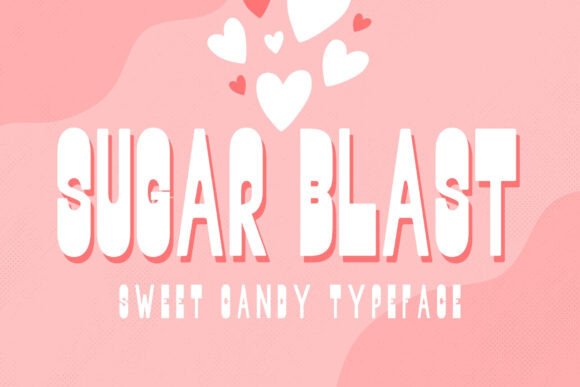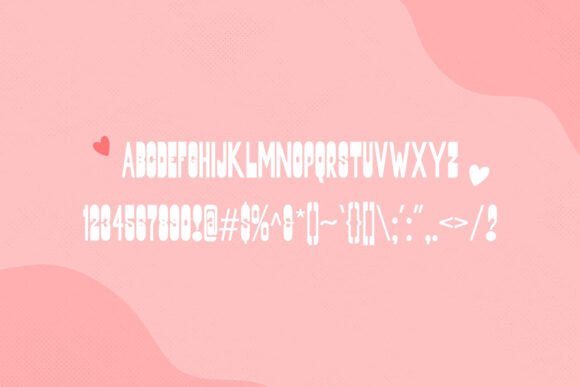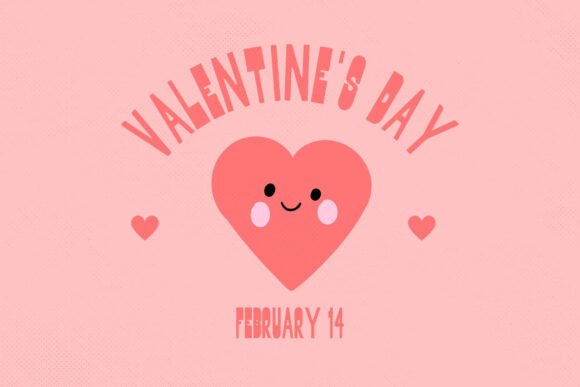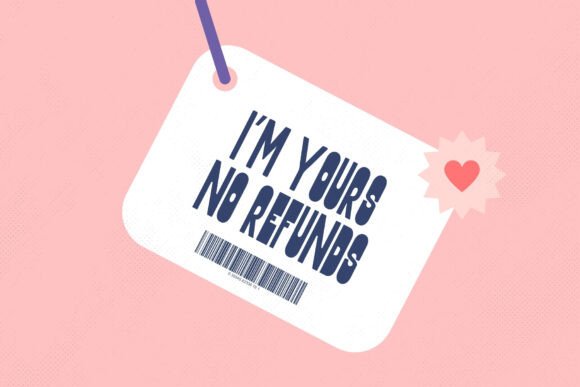
Sugar Blast Font: A Retro Bubbly Display Font for Playful Branding
About the Sugar Blast Font
Meet Sugar Blast Font, a stunning font that brings a touch of elegance and professionalism to any design. Step into a sugar-coated time machine with Sugar Blast, a bold and bubbly all-caps typeface inspired by the playful charm of 1950s-60s advertisements. Bursting with vintage fun and vibrant personality, this font is perfect for candy packaging, sweet shop logos, playful branding, kids’ projects, and anything that needs a pop of nostalgic joy!
Designed to be big, bold, and beautiful, Sugar Blast thrives in large sizes, making it the ultimate choice for headlines, posters, and eye-catching displays. With its soft curves, lively letterforms, and a sprinkle of retro whimsy, this typeface adds a sense of fun, energy, and carefree delight to any project.
So whether you’re designing for a retro candy brand, a fun party invite, or a playful logo, Sugar Blast is ready to bring the sweetest vibes to your work!